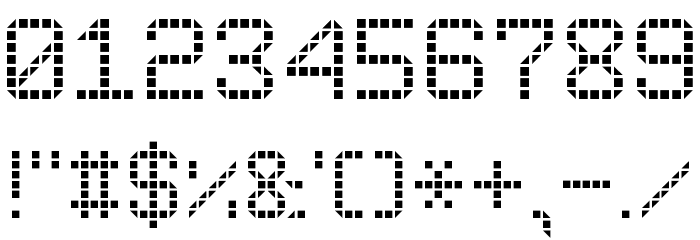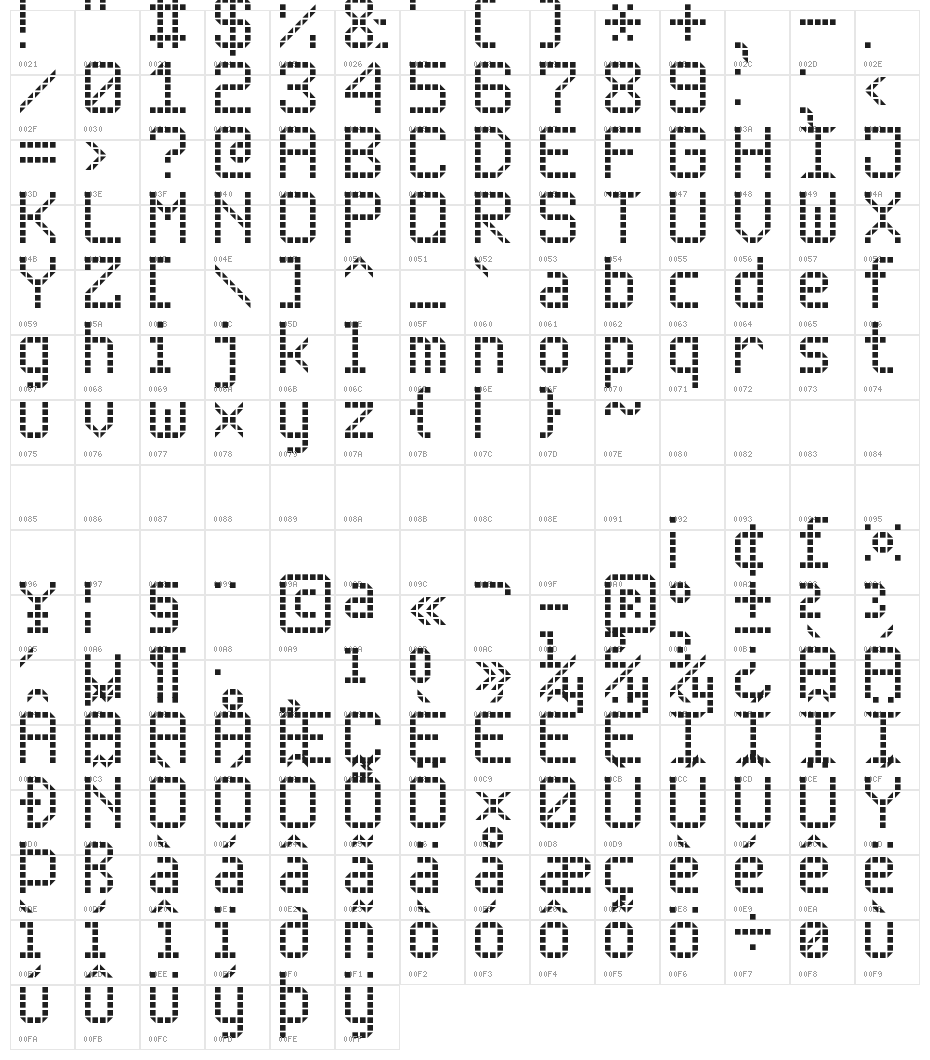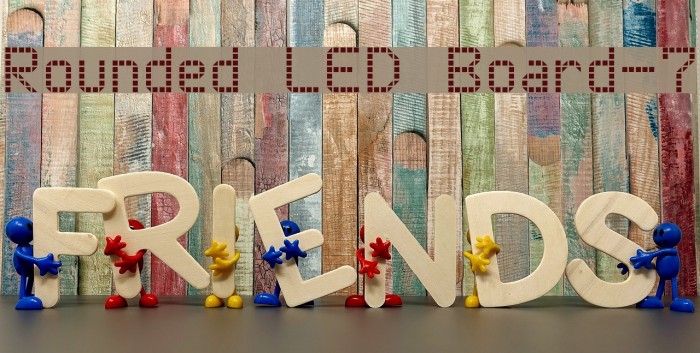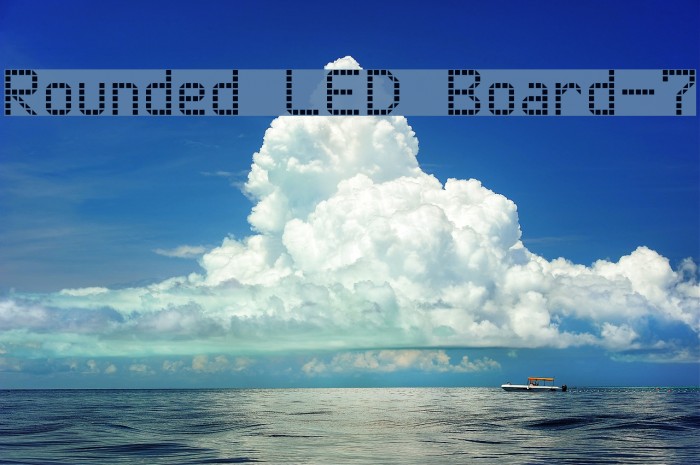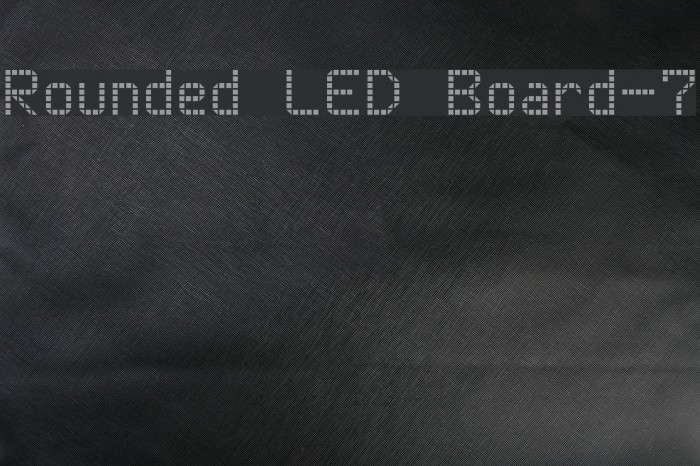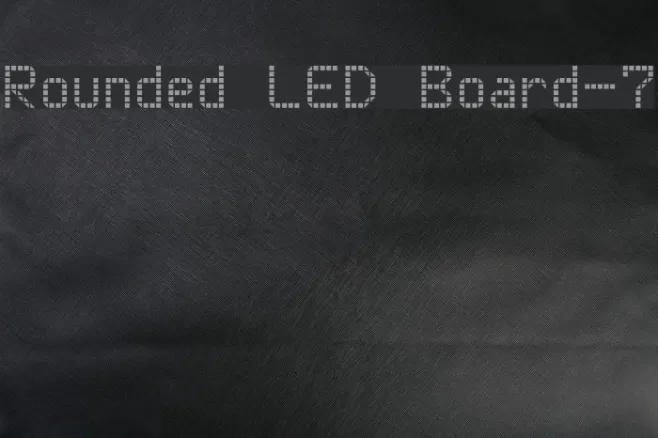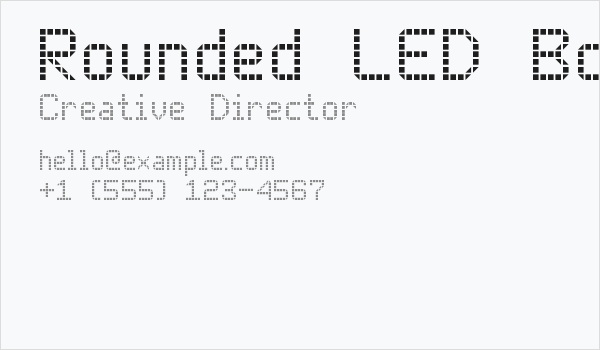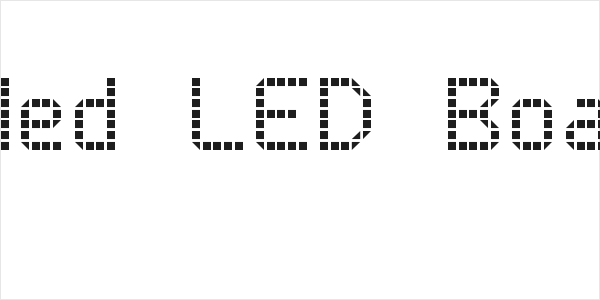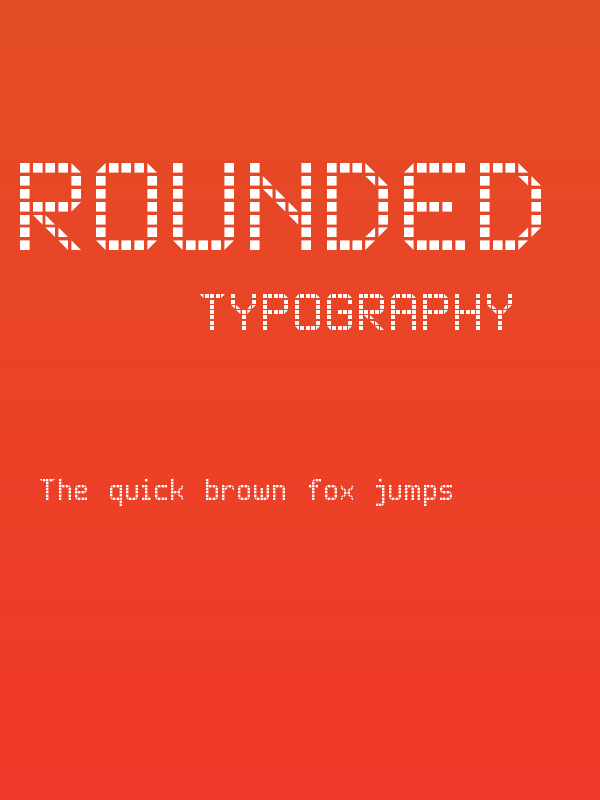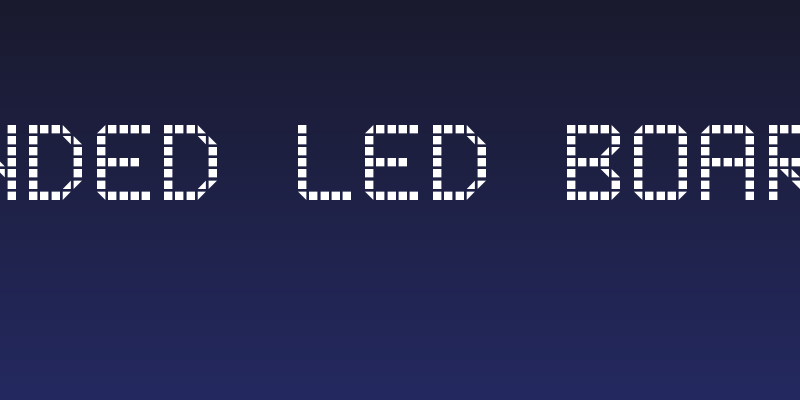
Rounded LED Board-7 Font
Rounded LED Board-7 Description
This font features a distinctive design reminiscent of LED displays, with each character composed of small, rounded square dots arranged in a grid pattern. The geometric structure gives it a digital and modern appearance, ideal for conveying a tech-savvy or futuristic vibe. The uniformity in the dot arrangement ensures clarity and readability, while the rounded edges soften the overall look, making it visually appealing. This style is particularly effective in contexts where a digital or electronic theme is desired, such as in technology-related branding or digital interfaces. The font maintains a consistent weight and width across all characters, contributing to its cohesive and balanced aesthetic.
| Use Case | Headlines, Logos, Digital Displays |
| Proposed Projects | Perfect for digital displays, tech branding, electronic interfaces, and futuristic designs. |